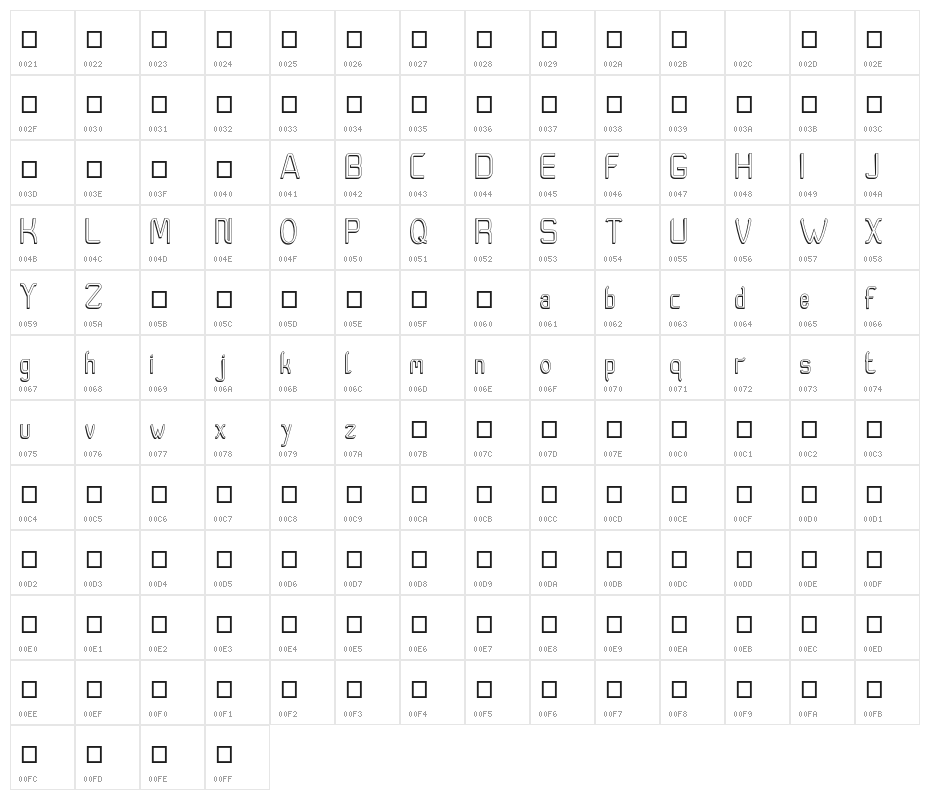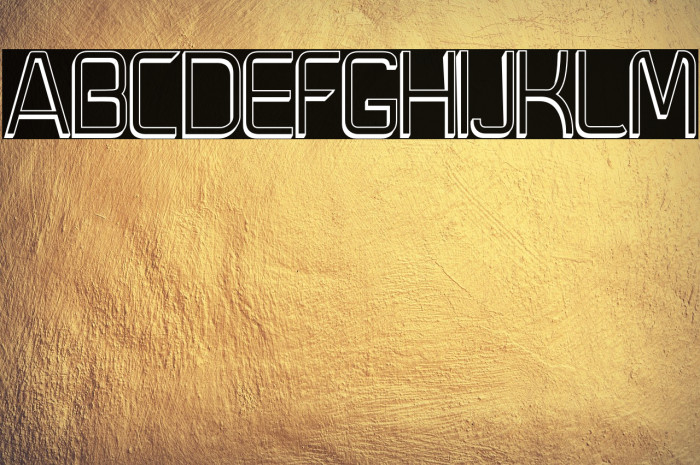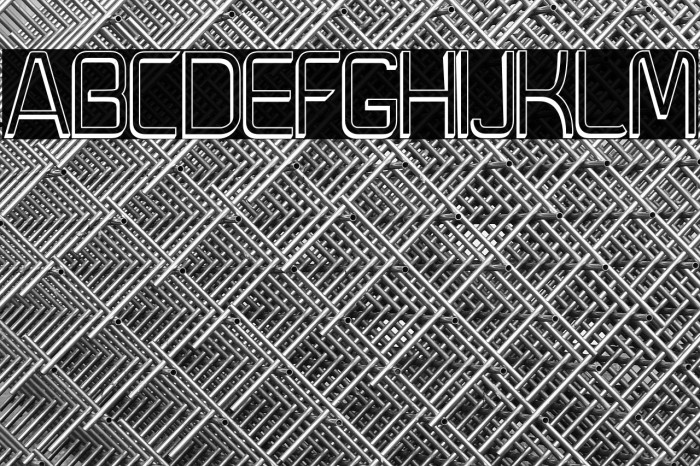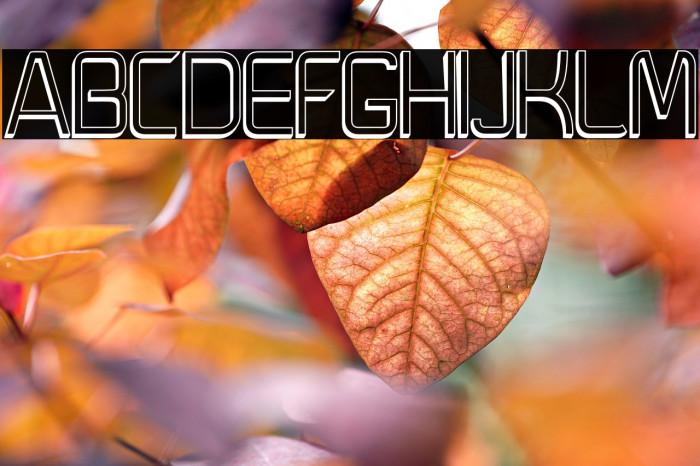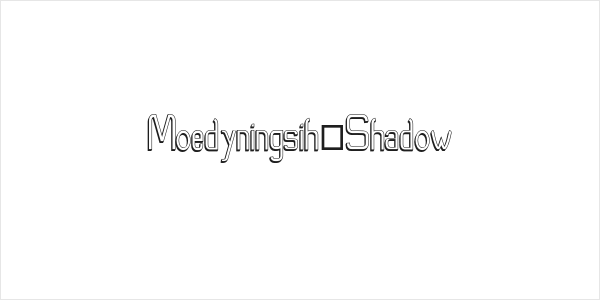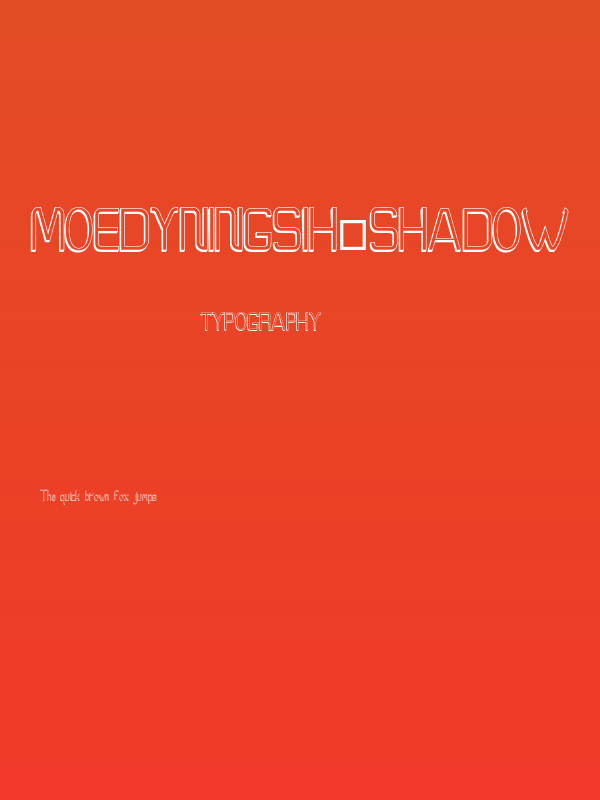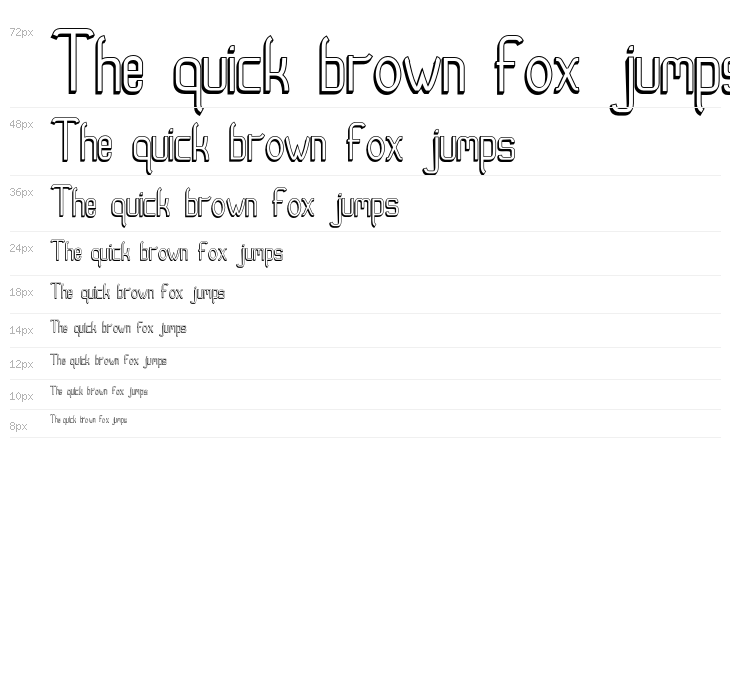
Moedyningsih_Shadow Font
Moedyningsih_Shadow Description
This font features a unique shadow effect that gives each character a three-dimensional appearance. The uppercase letters are bold and structured, with a geometric design that emphasizes clean lines and sharp angles. The lowercase letters maintain the same geometric style but with a slightly softer touch, making them more approachable. The numbers and special characters are consistent with the overall design, ensuring uniformity across all elements. The font's shadow effect adds depth, making it ideal for eye-catching designs.
| Proposed Projects | Ideal for posters, logos, and headlines where a bold, modern look is desired. |